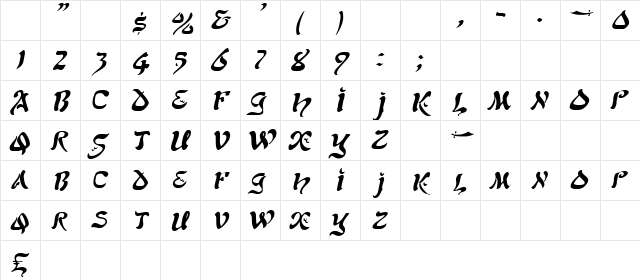
Jean Oblique Font Preview
Jean Oblique
Jean Oblique Font Details
Design Context for Jean Typeface
Jean is a composed and adaptable typeface that performs quietly and consistently across a wide range of design contexts. The dynamic lean of this cut emphasises speed and emphasis in any layout.